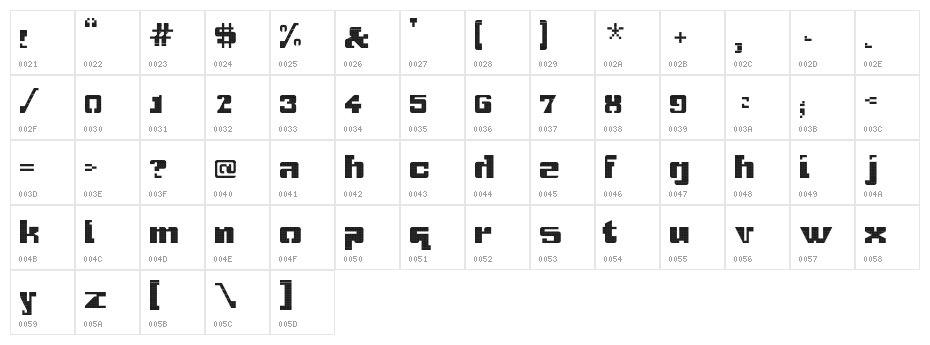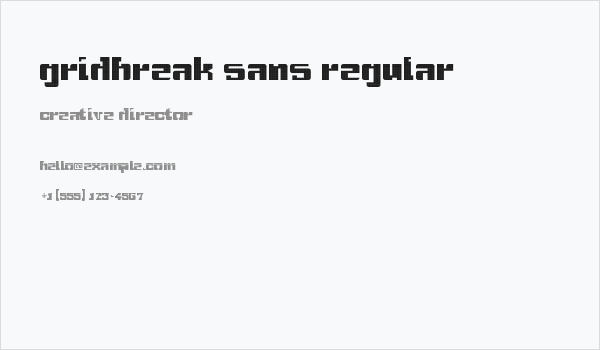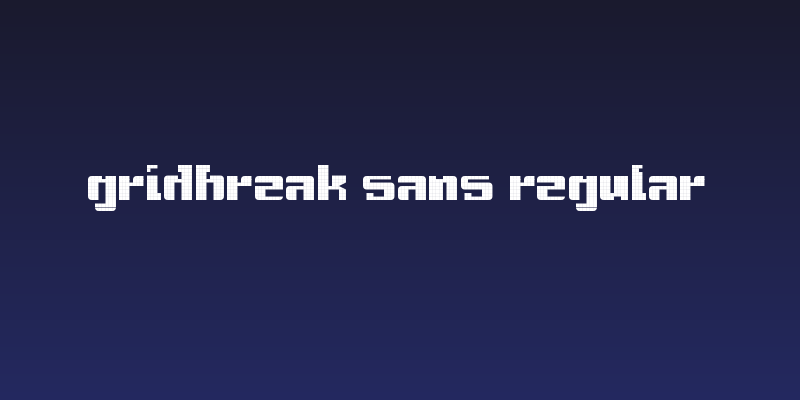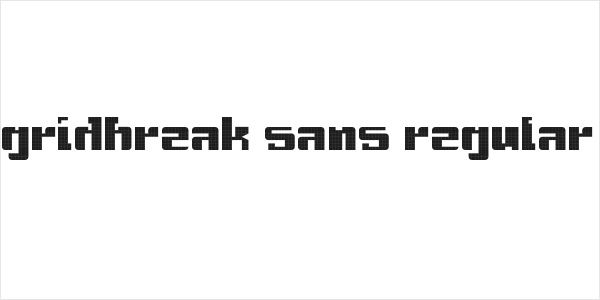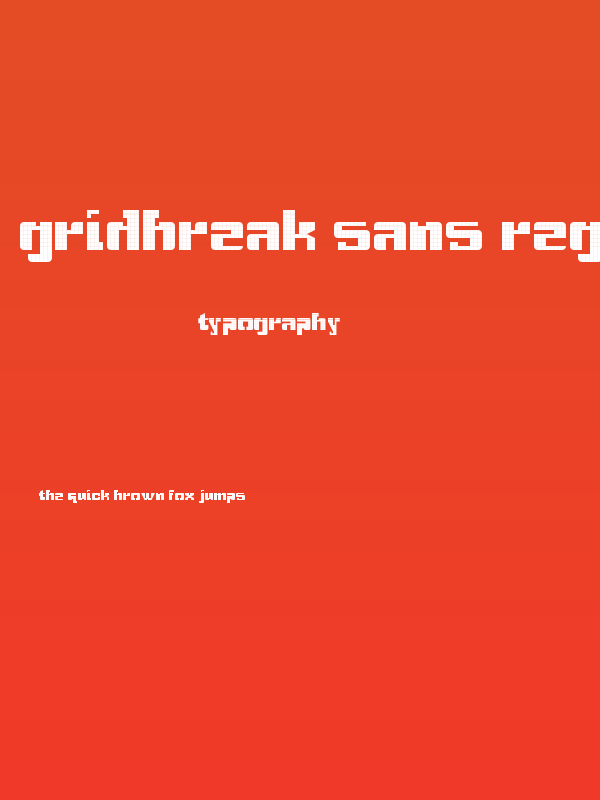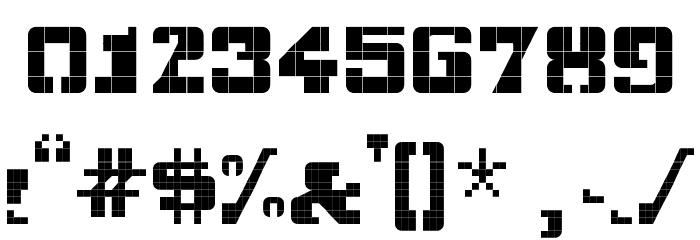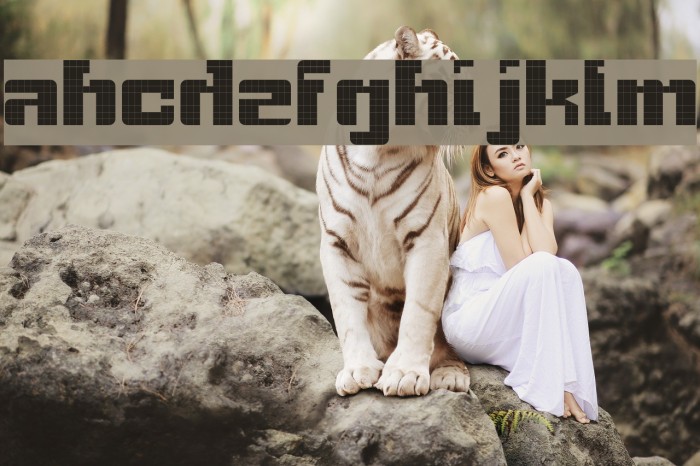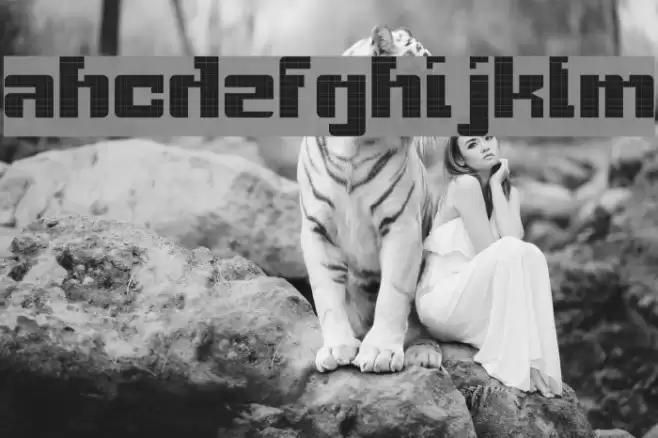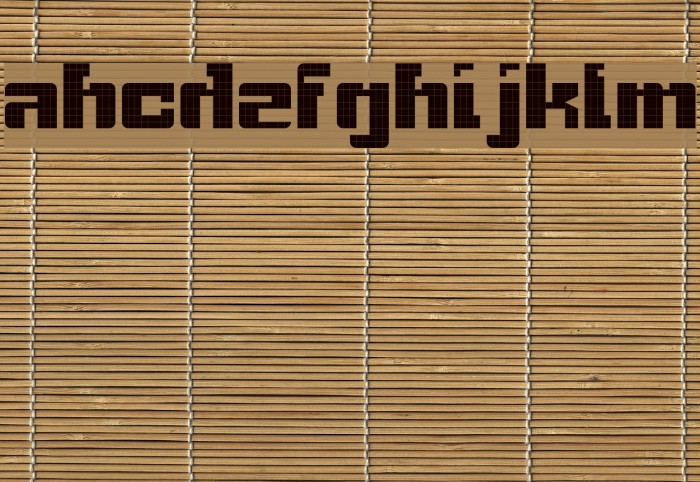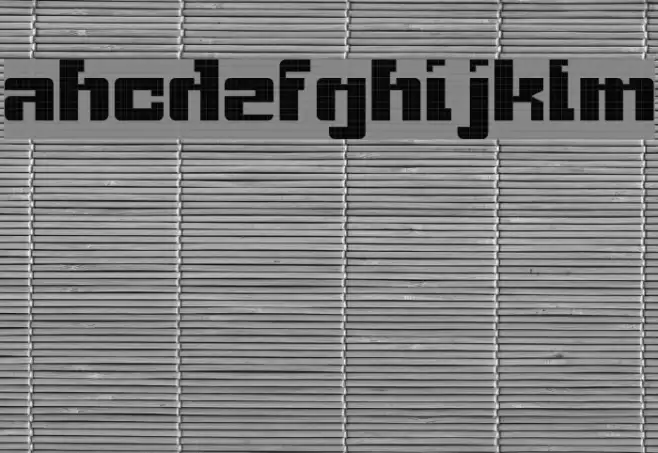
gridbreak sans Regular Font
gridbreak sans Regular Description
This font features a bold, geometric design with a grid-like pattern that gives it a digital, futuristic appearance. The characters are constructed with a series of rectangular blocks, creating a pixelated effect that is both modern and distinctive. The uppercase and lowercase letters maintain a consistent style, with sharp angles and a uniform height, contributing to a cohesive look. The numerals and special characters follow the same design principles, ensuring a seamless integration across different text elements. This font's unique style makes it stand out, offering a visually striking option for creative projects.